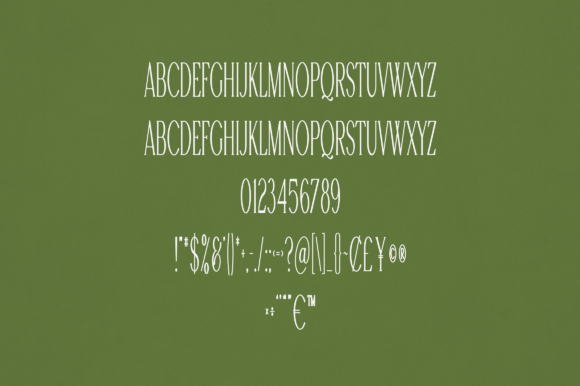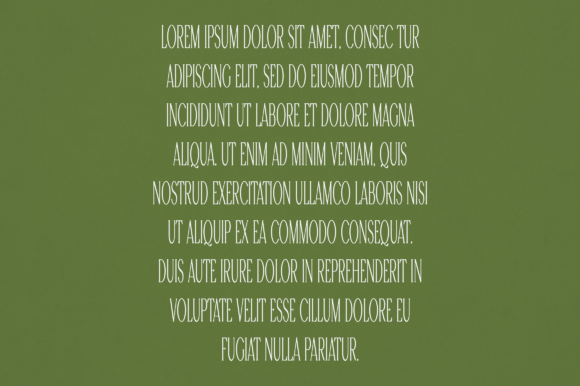
Introducing Damon Font: Elevate Your Design with Elegance and Versatility
In the world of typography, a font can make or break a design. It’s the foundation upon which your brand’s identity is built, conveying your message with precision and style. If you’re on the hunt for a typeface that exudes elegance, versatility, and uniqueness, look no further than the Damon Font. This exquisite serif font is designed to transform your typography into a masterpiece, making it perfect for a wide range of applications, from logos and branding to headlines and plain text.
The Essence of Damon Font
Damon Font is an elegant and versatile serif font that stands out in the crowd. Its classic serif structure, combined with modern flair, makes it an enchanting addition to any design project. Whether you’re crafting a logo, creating branding materials, designing product packaging, or simply looking for a stylish text overlay for a background image, Damon Font is the perfect choice. Its unique charm and sophisticated look ensure that your typography will not only stand out but also leave a lasting impression.
One of the key advantages of Damon Font is its incredible versatility. It’s a font that can adapt to various design needs and preferences, making it a valuable asset for designers and crafters alike. Here are some of the areas where Damon Font truly shines:
- Branding Projects: Establish your brand’s identity with a font that communicates elegance and sophistication. Damon Font’s unique style ensures that your brand stands out and resonates with your target audience.
- Home-Ware Designs: Add a touch of class to your home-ware designs with Damon Font. Its elegant appearance makes it perfect for product labels, packaging, and marketing materials.
- Product Packaging: Make your products stand out on the shelves with eye-catching packaging. Damon Font’s versatility allows it to be used for a wide range of products, from cosmetics to gourmet foods.
- Magazine Headers: Create stunning magazine headers that grab attention. Damon Font’s elegant and readable design ensures that your magazine’s title pages are both stylish and easy to read.
- Text Overlays: For those looking to add a stylish text overlay to a background image, Damon Font offers a sophisticated solution. Its clear and elegant letters ensure that your message is conveyed with style, regardless of the background.
Why Choose Damon Font?
With so many fonts available, what sets Damon Font apart? Here are a few reasons why designers and crafters are choosing Damon Font for their projects:
- Elegance: Damon Font brings an unparalleled level of elegance to any design. Its classic serif elements ensure a sophisticated look that’s hard to achieve with more modern or minimalist fonts.
- Versatility: Whether you’re working on a digital project or a print design, Damon Font adapts beautifully. Its clear structure and elegant lines make it suitable for a wide range of applications.
- Uniqueness: In a sea of similar fonts, Damon Font stands out. Its unique blend of classic and modern elements ensures that your design will be memorable and distinctive.
- Readability: Despite its elegant and somewhat ornate appearance, Damon Font remains highly readable. This makes it perfect for both headlines and body text, offering flexibility in your design choices.
Damon Font is more than just a typeface; it’s a design statement. Its elegant and versatile nature makes it an ideal choice for designers and crafters looking to elevate their projects. Whether you’re aiming to create a lasting brand identity, design captivating product packaging, or simply add a touch of sophistication to your typography, Damon Font is the perfect tool for the job. With its unique charm, sophisticated look, and incredible versatility, Damon Font is set to become your go-to font for a wide range of design applications.